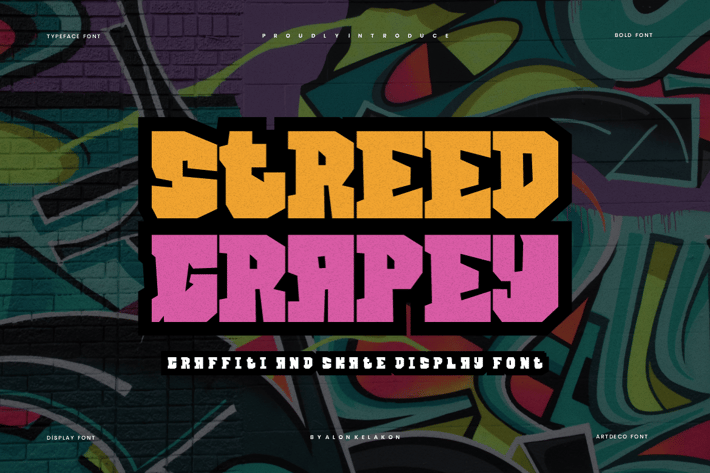
Streed Grapey - Graffiti & Skate Font
Streed Grapey Font is unique . Ready to use for your design like labeling, movie sceen, poster, movie title, gigs, album covers, logos, and much more.